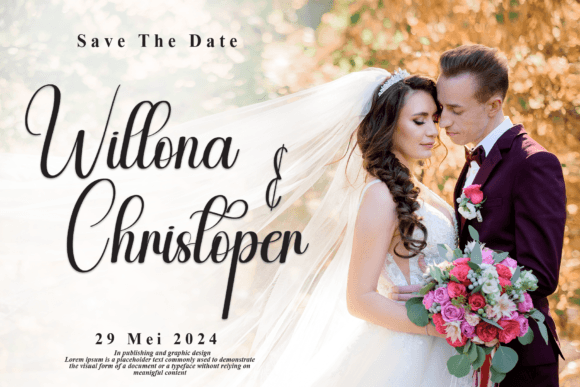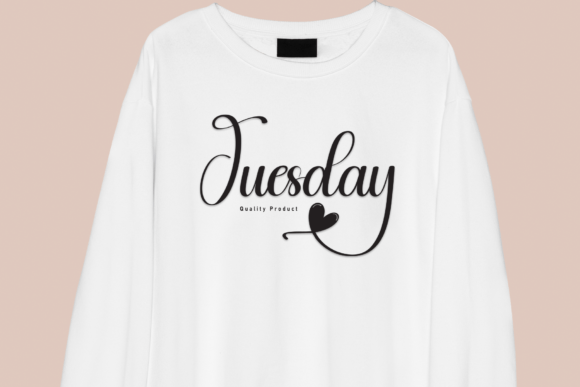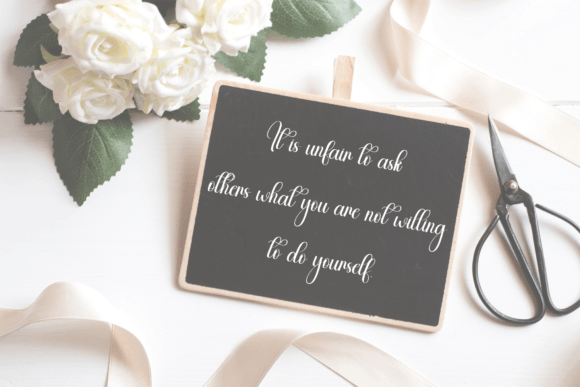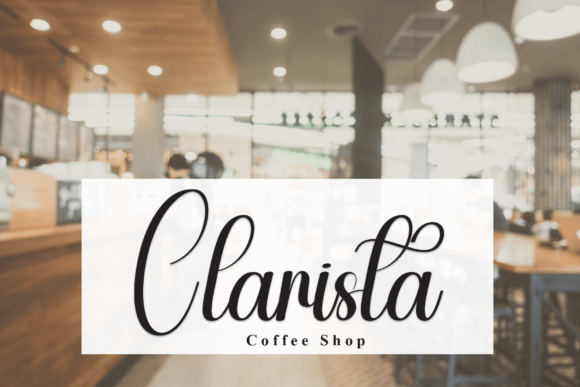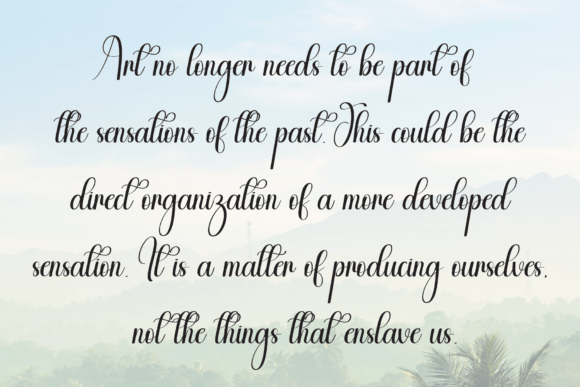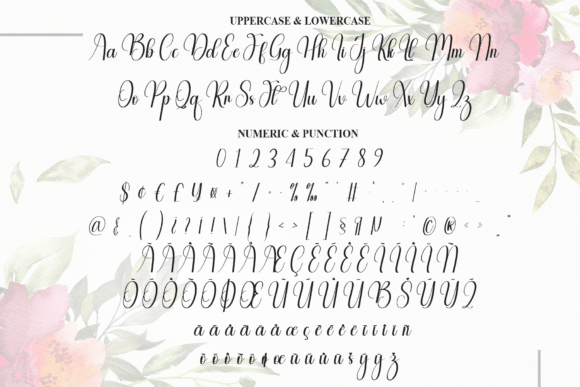
Discover the Timeless Charm of Beauty Font
Have you ever found yourself lost in a sea of blank paper, searching for the perfect font to bring your creative vision to life? We’ve all been there – staring at a blank canvas, hoping to capture the essence of our idea. For designers, the search for the perfect font can be a daunting task, but what if we told you that the key to unlocking your next masterpiece lies in the elegant strokes of the Beauty Font?
This charming handwritten font is more than just a pretty face – it’s a sophisticated tool designed to elevate your projects with its refined allure and warmth. Whether you’re crafting upscale invitations, developing personal branding, or working on chic editorial designs, the Beauty Font is the perfect companion to help you create something truly special. With its graceful, flowing strokes and unique character, this font is sure to leave a lasting impression on your audience.
Key Features of “Beauty Font”
- Unique Characteristics: The font features a unique blend of elegance and sophistication, with intricate details and flourishes that set it apart from other fonts.
Beauty Font Review
First off, let me say that I love the look of Beauty Font. The cursive script ✨ is absolutely gorgeous, and the elegant feel to it is perfect for any beauty or fashion brand. I also appreciate the numerous language support options, which makes it easy to use across different markets.
- Beautiful cursive script that’s perfect for beauty and fashion brands
- Wide language support, including English, Spanish, French, and many more
- High-quality vector graphics for crisp and clear display
- Customizable to suit different design needs
However, I do have some reservations about the font. For one, it’s not as versatile as some other fonts on the market. The cursive script is great, but it may not be the best choice for headings or titles that need a bit more punch. Additionally, some users may find the font to be a bit too delicate or ornate, which could be a drawback for certain design styles.
Overall, Beauty Font is a beautiful and elegant font that’s perfect for beauty and fashion brands. While it may have some limitations, it’s still a great choice for designers looking for a high-quality, cursive script font.
Beauty Font: A Practical Application Guide
Beauty Font is ideal for creative projects that require a touch of elegance and sophistication. Common use cases include:
– Fashion and beauty branding
– Luxury product packaging
– High-end magazine and newspaper layouts